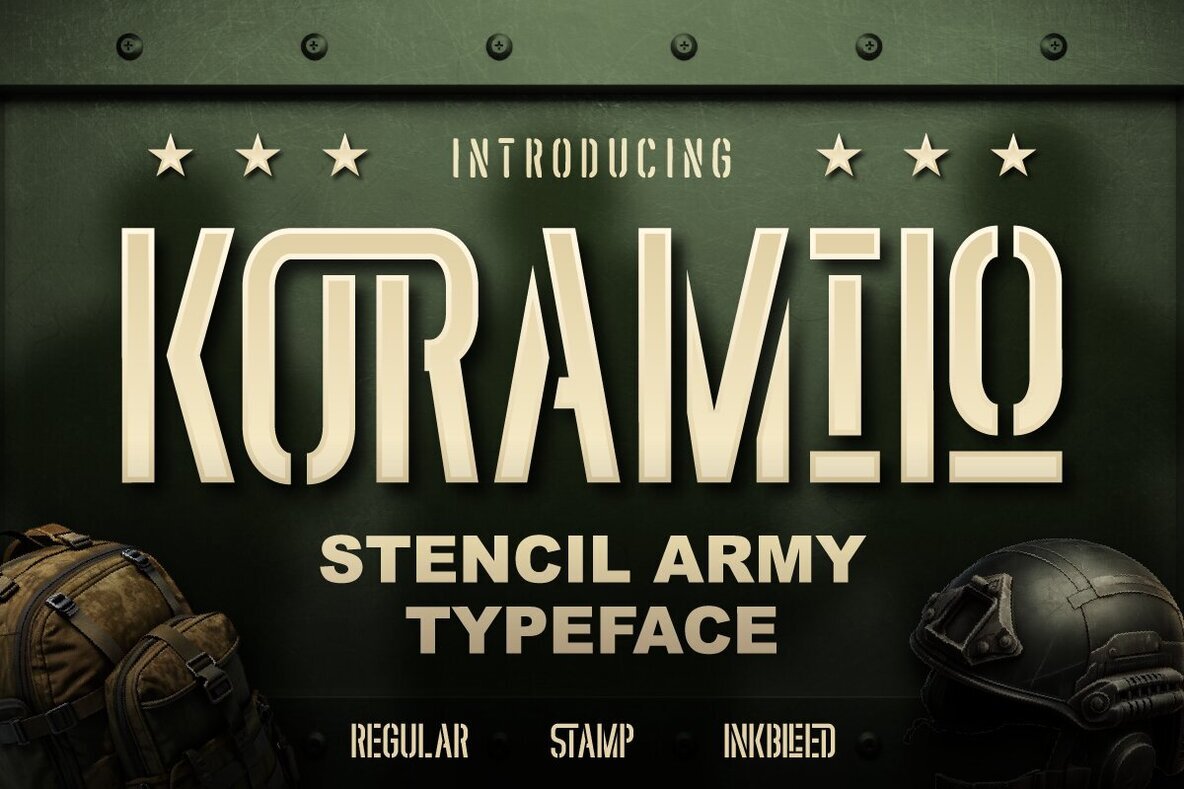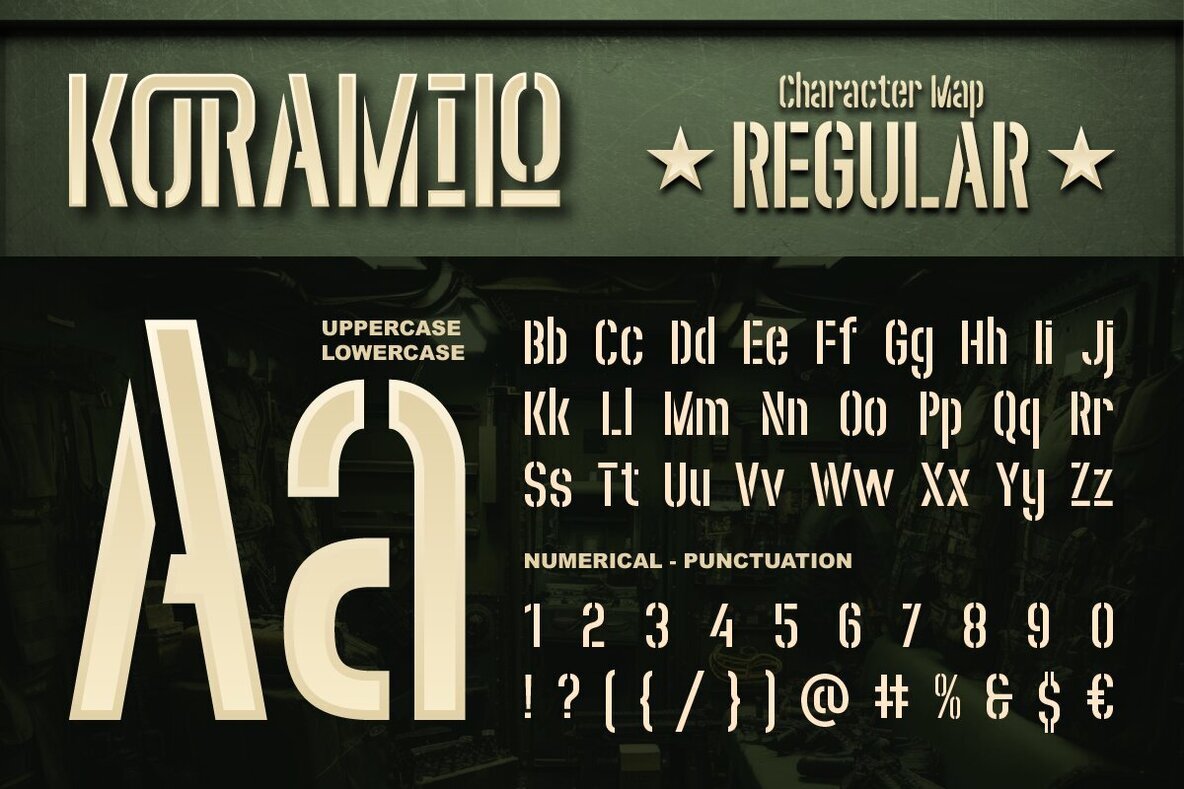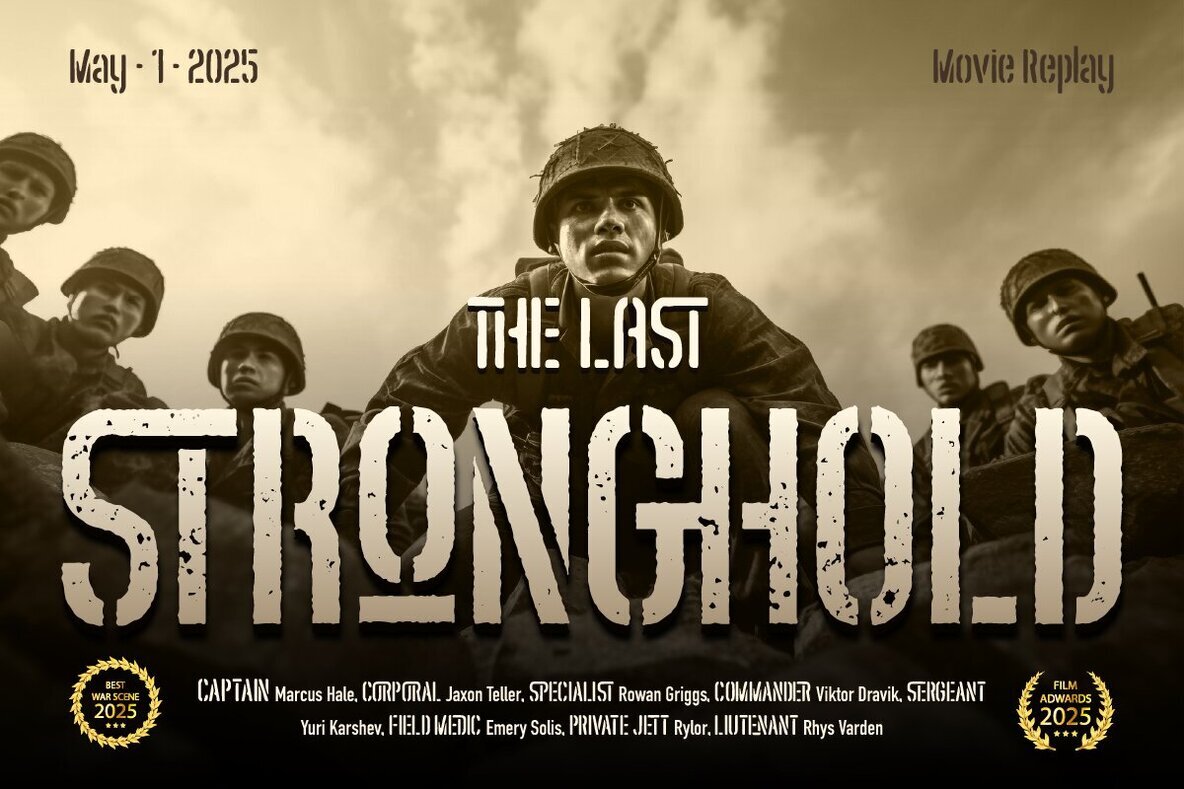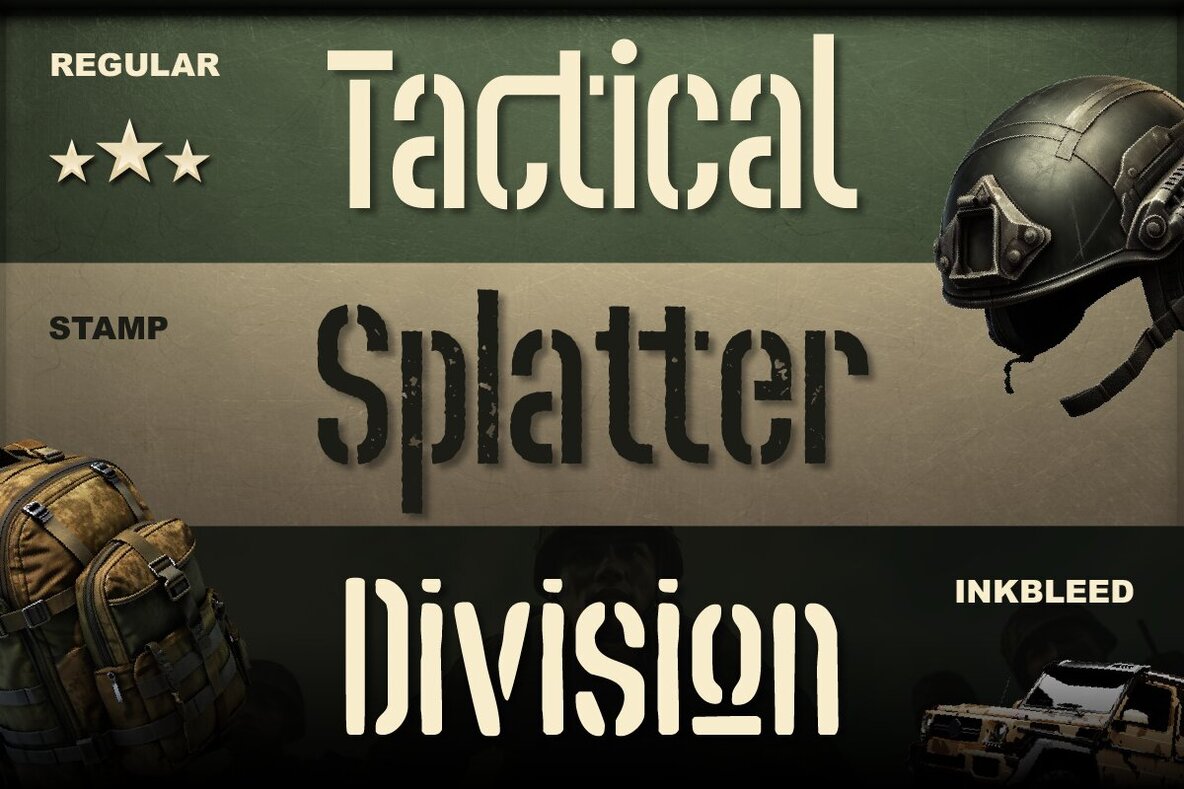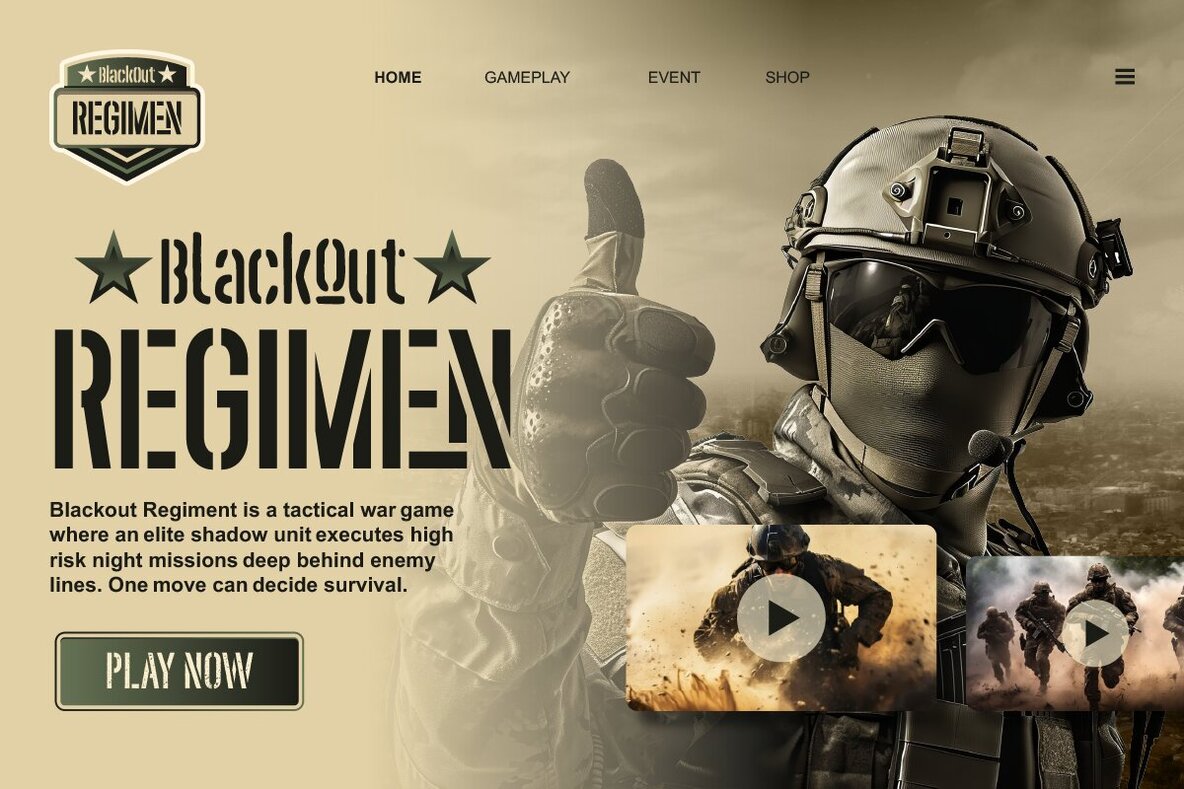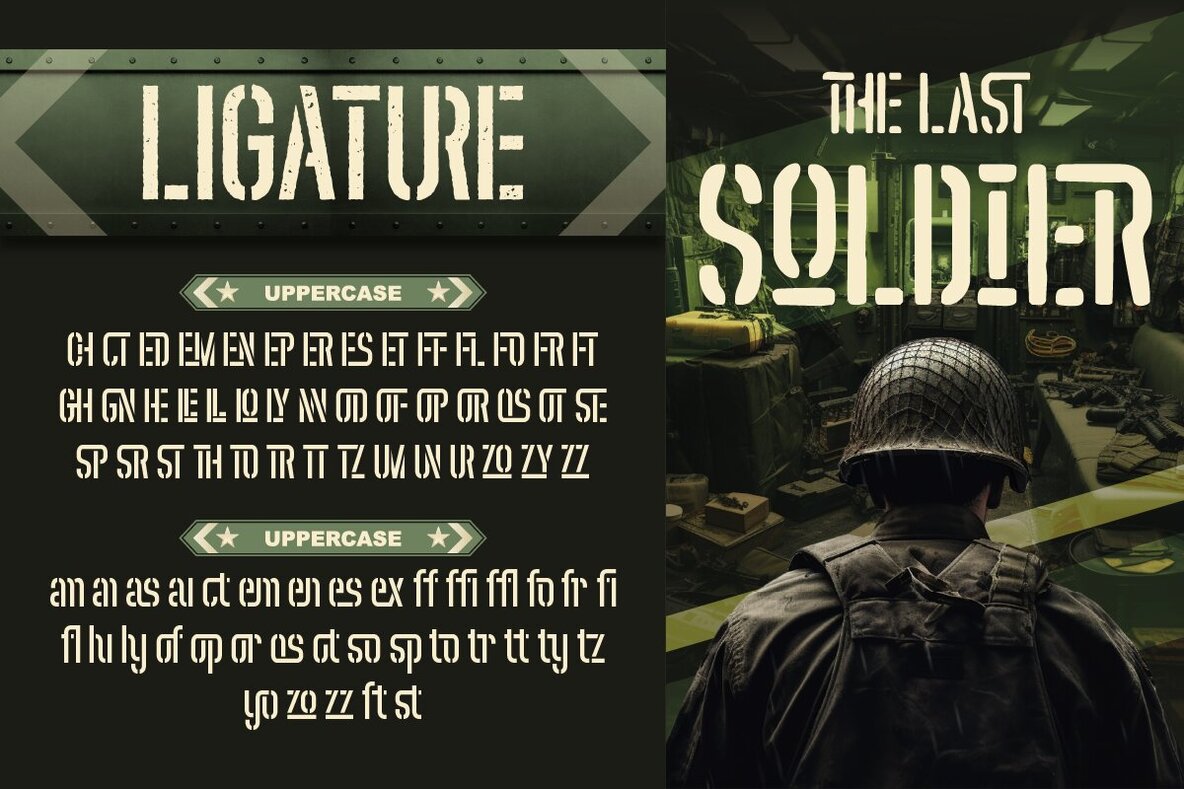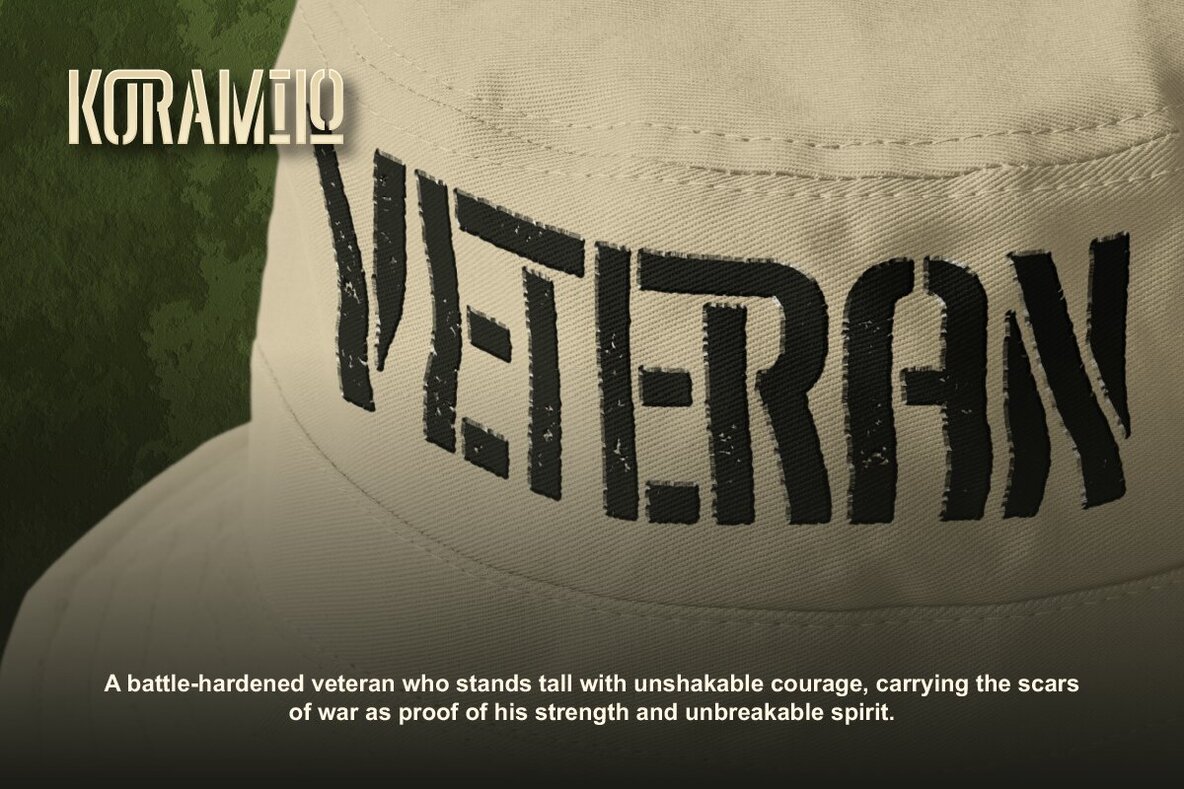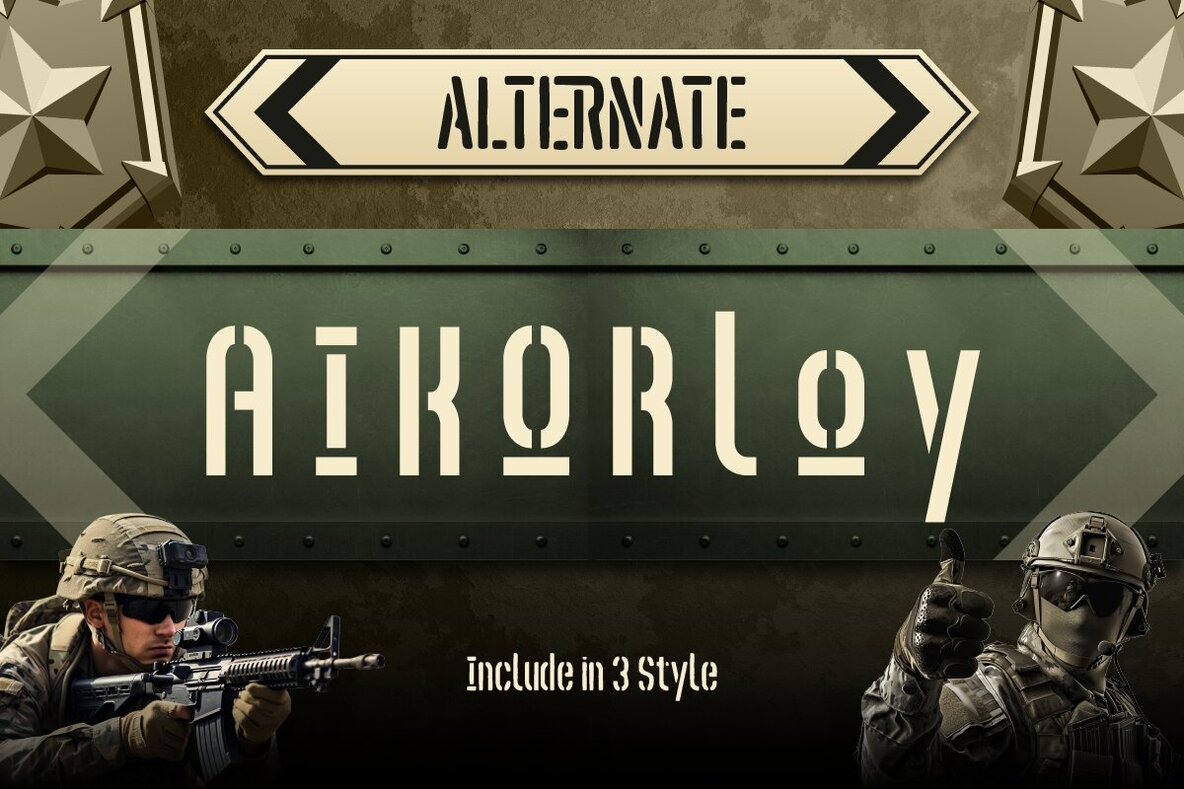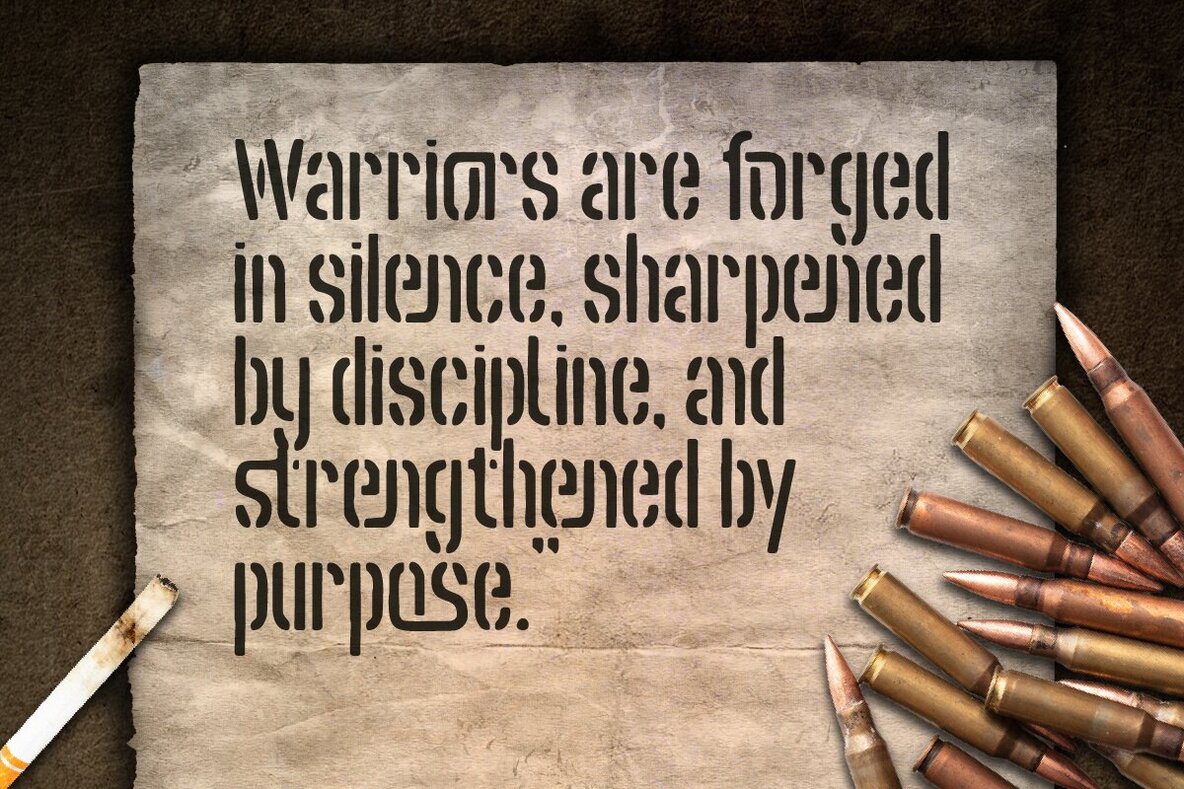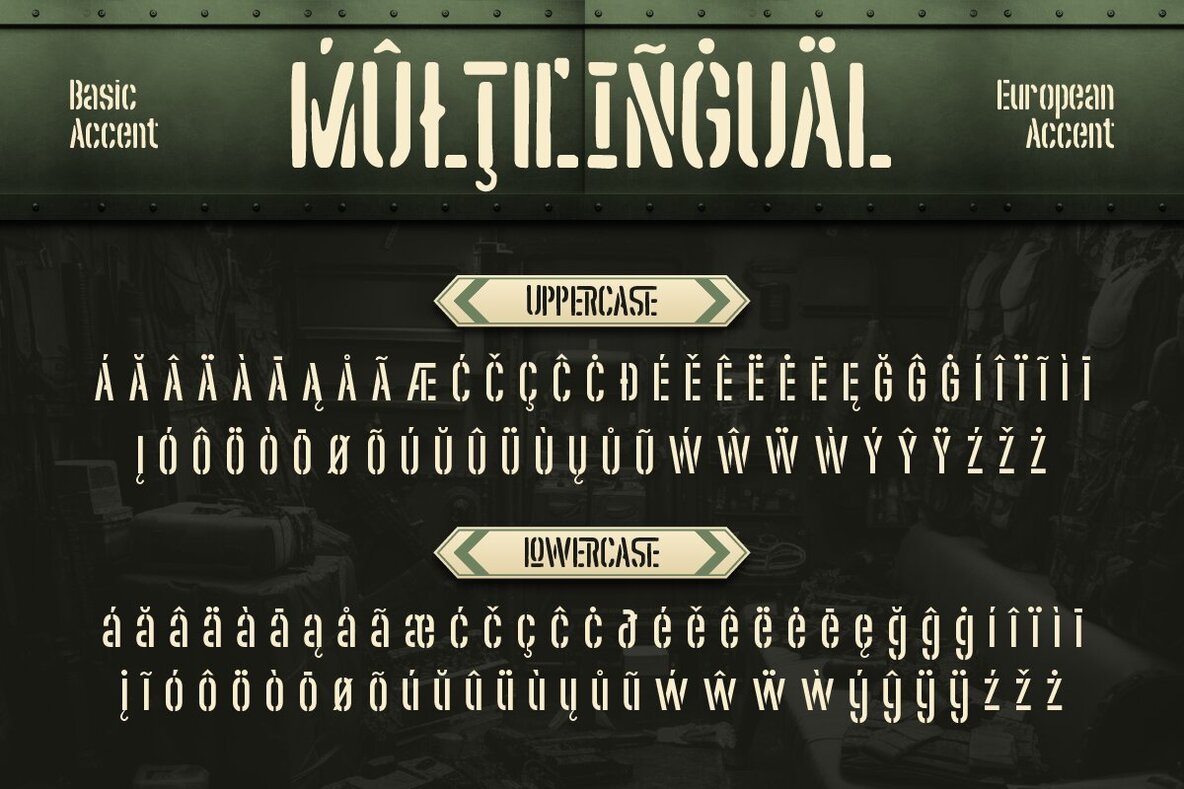
Koramilo Font
Koramilo Regular
Koramilo Inkbleed
Koramilo Stamp
Koramilo channels the aesthetics of tactical stencils and rugged military equipment, bringing an assertive tone to any project. Its design is inspired by the practical style of real-world gear and disciplined precision, creating a visual identity with a distinct "battlefield" edge. The Regular style is sharp and commanding, perfect for clear and impactful headlines. Stamp features a weathered texture reminiscent of markings found on crates and vehicles, adding depth and authenticity. Inkbleed captures dramatic imperfection, resembling type produced under demanding conditions. Each style supports projects that require a bold, military-inspired mood—ideal for posters, game titles, badges, apparel, movie graphics, and tactical branding. Koramilo’s versatility and strong visual identity make it a reliable choice for standout titles, impactful graphics, and any design aiming for a courageous, mission-ready look.Koramilo: Military-Inspired Typeface for Commanding Designs